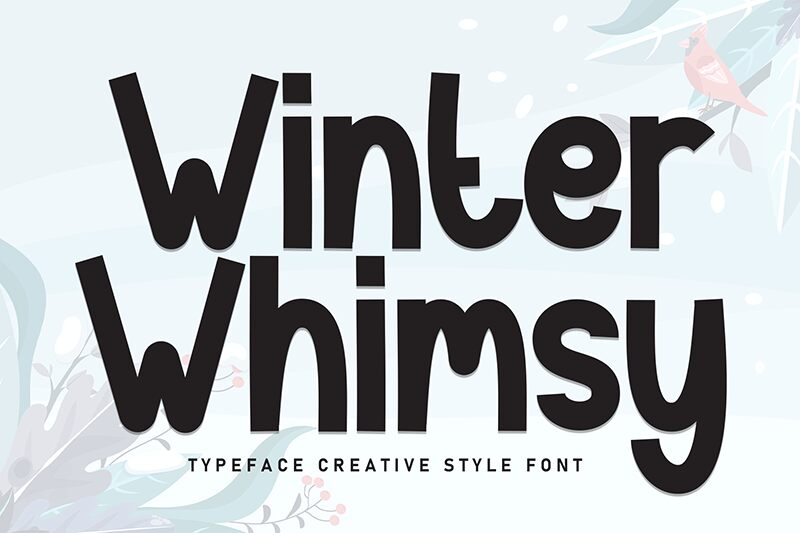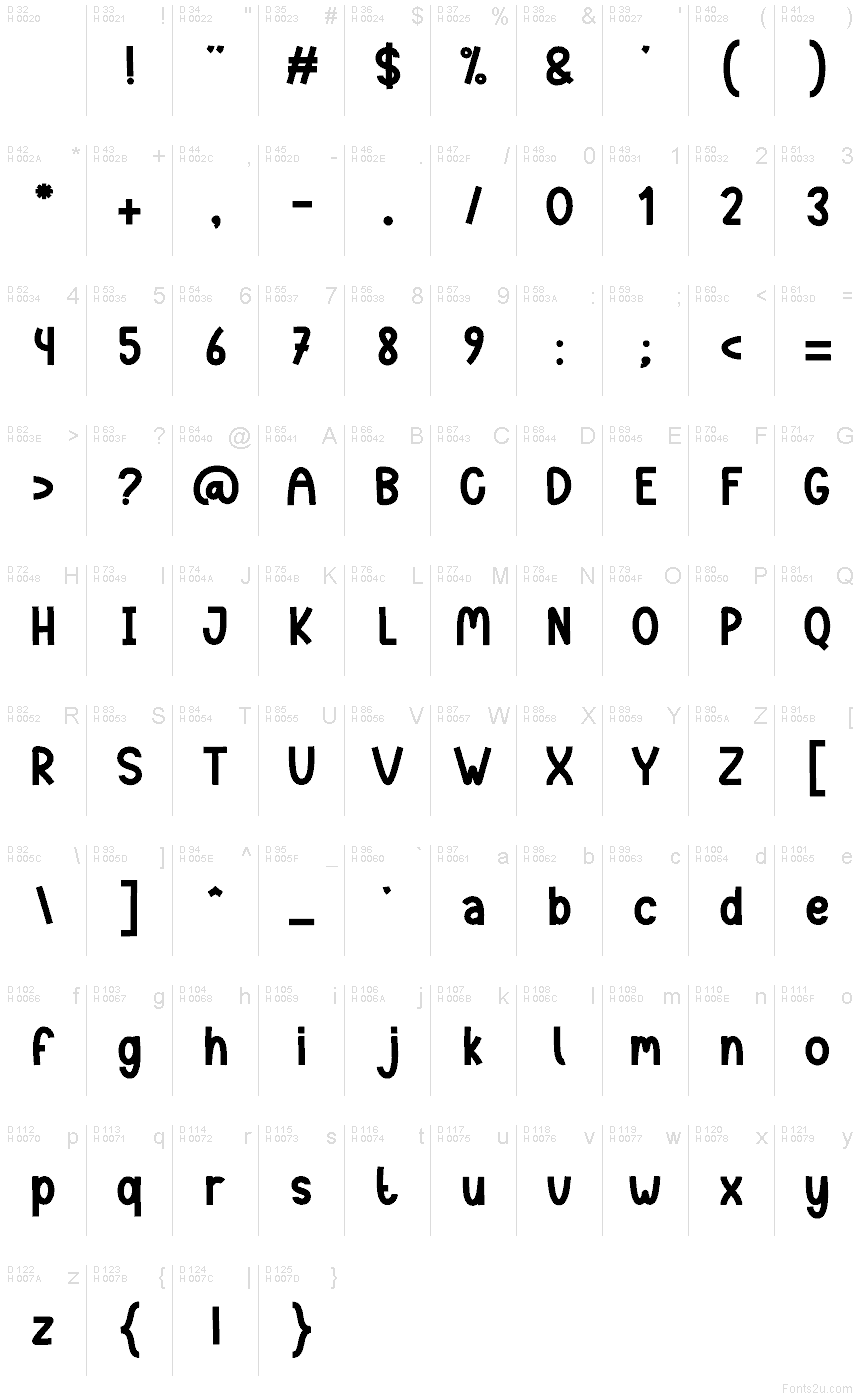
Winter Whimsy
Winter Whimsy font by Andi Moz is a modern display font with casual, round strokes and a whimsical design. Its letters have clean outlines suitable for artistic purposes where simple and authentic typography is required. Being reader-friendly, the font allows reaching audiences of all age groups in different contexts in which it might be featured.
Among the use cases of this free rounded display font we find posters, adverts (printed or online), headlines and subheadlines, decorative texts on apparel items and packages. It can also be used to create logos for toys, games, and children stories as well as other applications meant specifically for this age category.